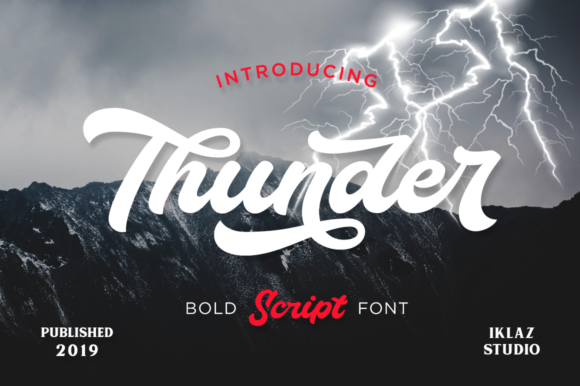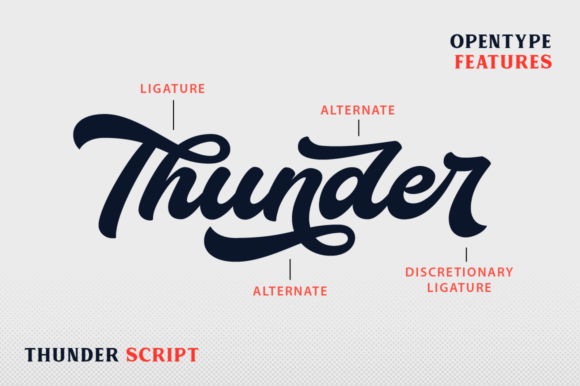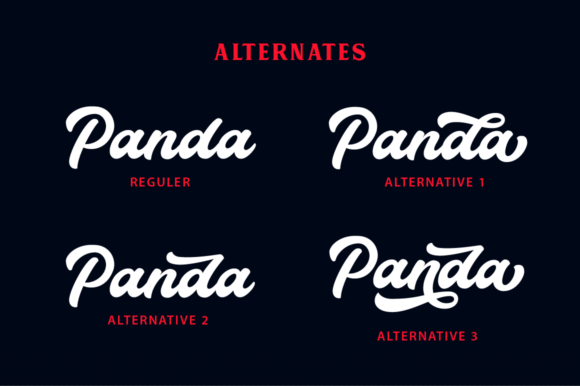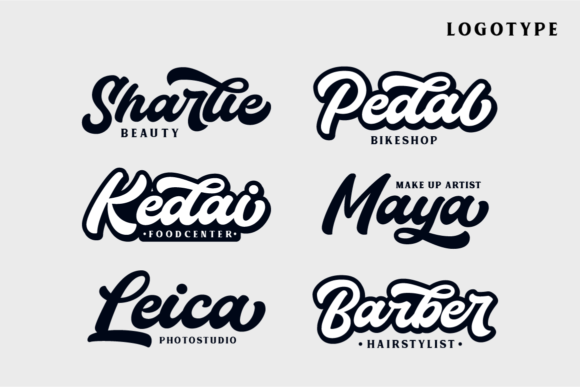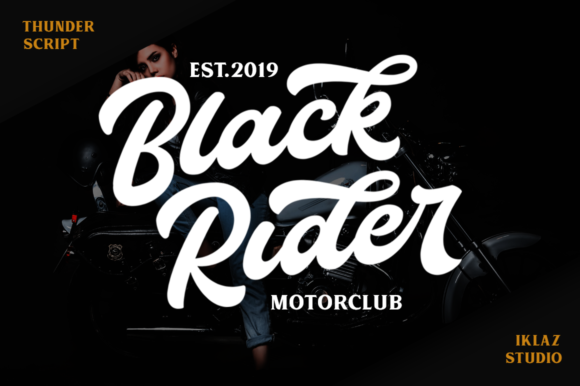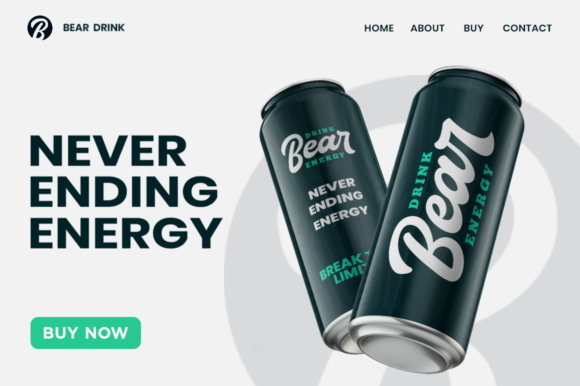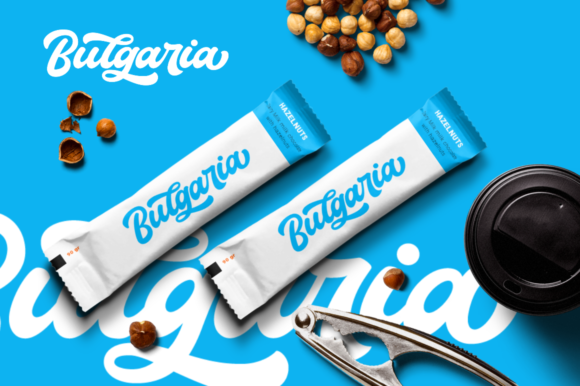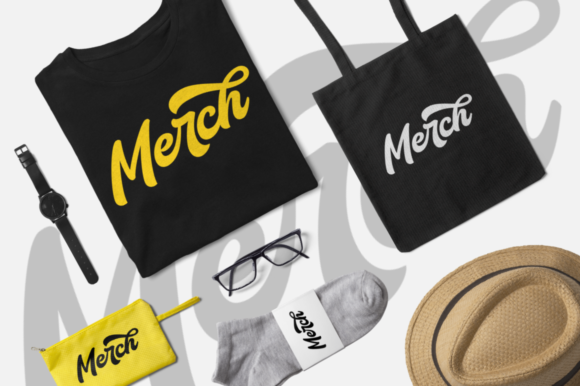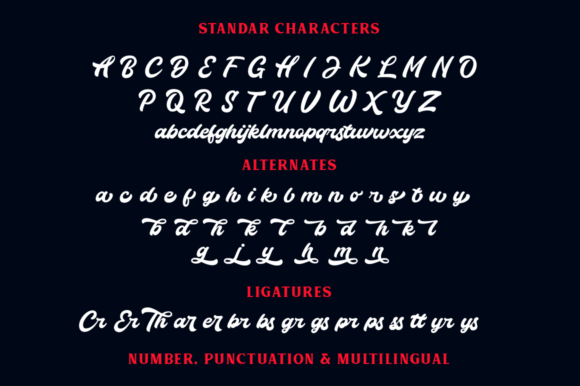
Thunder Script Font
About Thunder Script Font
The Thunder Script is a hand-lettered script font. It has a bold and smooth style and is perfect for making sny design stand out.
It’s perfect for logos, branding, packaging, merchandise, labels, and much more!